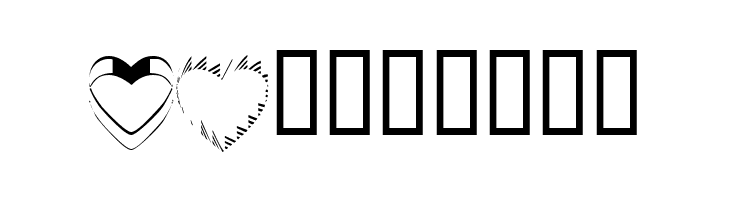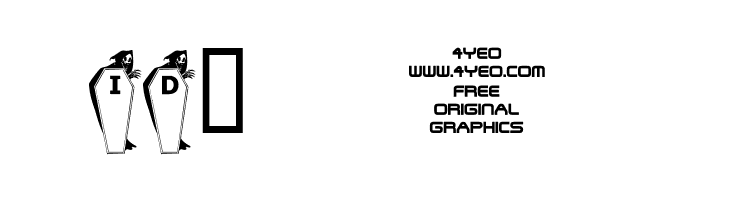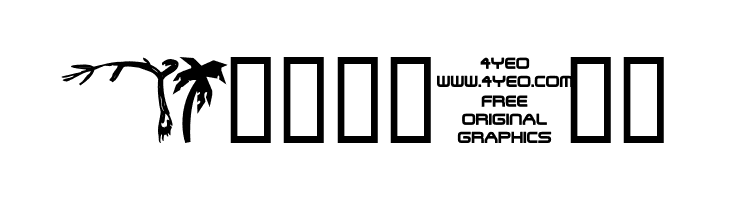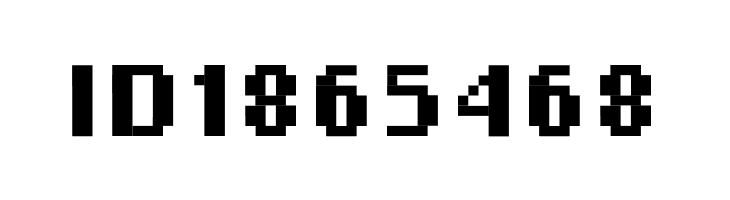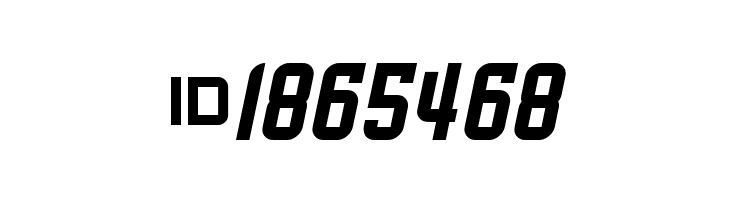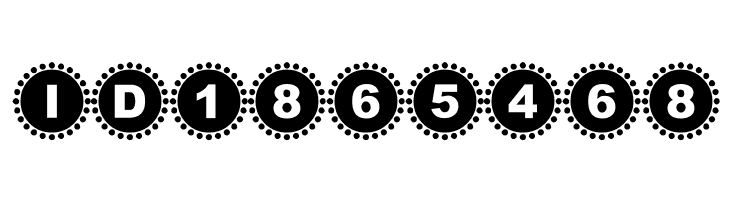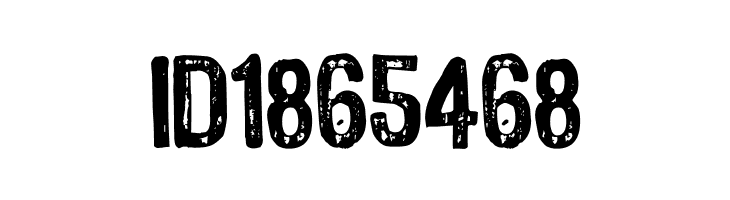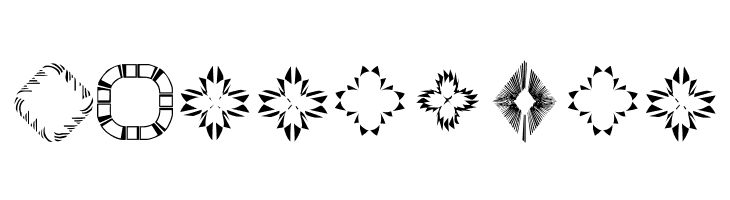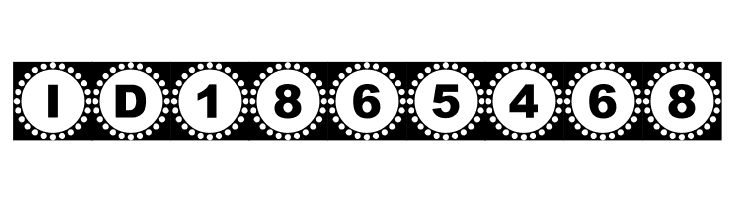
A geometric, grid-based font with a modern, digital aesthetic.
A bold, distressed font with a vintage, textured appearance.
A bold, geometric font with an athletic and robust style.
A playful, decorative font with bold letters and numbers encased in dotted circles.
Bold sans-serif font with decorative circular frames and dotted borders.
Ornamental geometric font with abstract frames and patterns.
A bold, geometric display font with garden and nature illustrations.
A Halloween-themed decorative font with letters in coffin shapes and skeletons.
A playful, heart-themed decorative font with bold rectangular numerals and symbols.